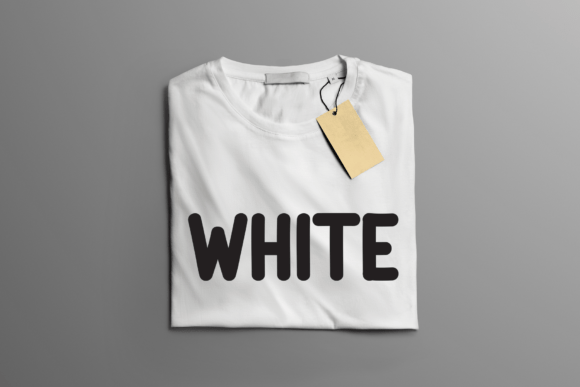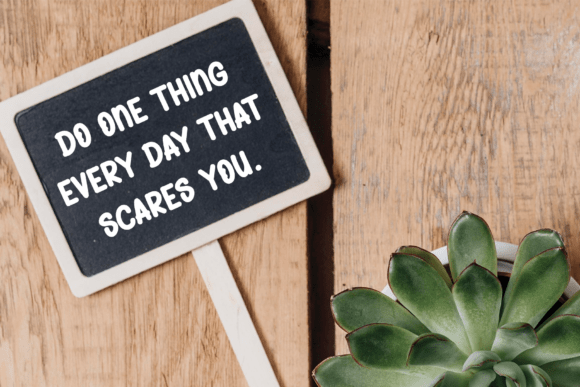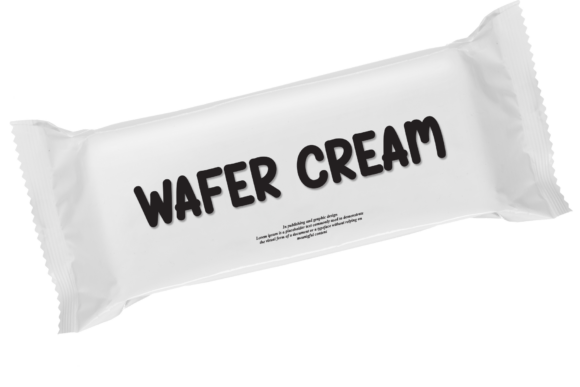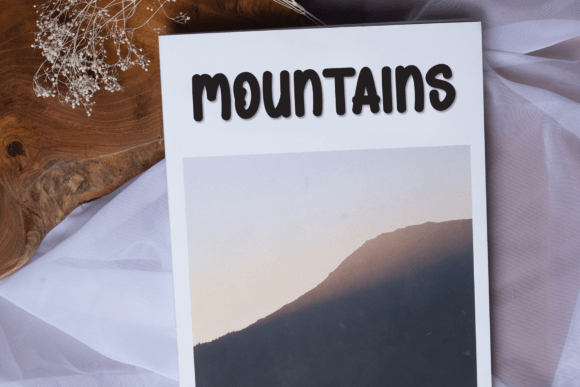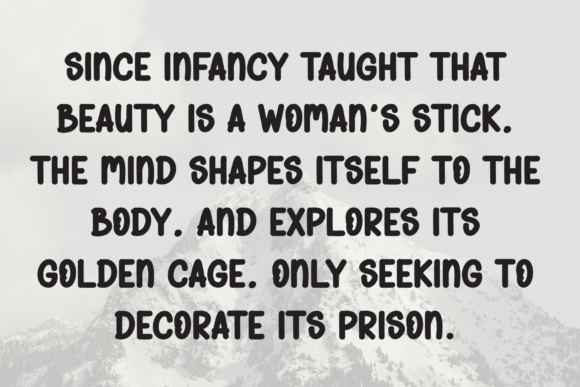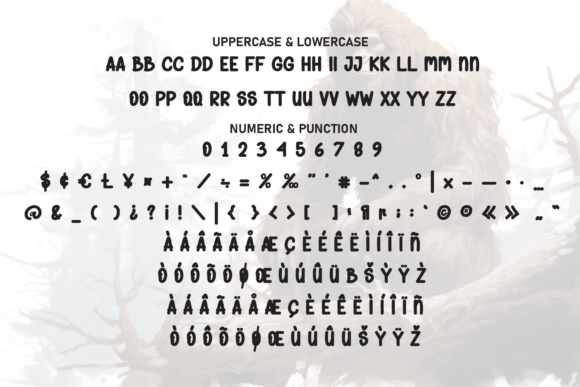
Unleashing the Charm of Bigfoot Font: A Whimsical Handwritten Display Font
Are you ready to add a touch of magic to your designs? Look no further than the captivating Bigfoot Font, a one-of-a-kind handwritten display font that exudes sweet camaraderie and mirth. This charming font is perfect for designers and crafters seeking to infuse their projects with a sense of jubilance and playfulness.
The Allure of Bigfoot Font
Bigfoot Font is more than just a font – it’s an experience. Its endearing and whimsical nature has the power to transport us back to a time when handwritten notes were a cherished form of communication. The font’s unique character is reminiscent of warm, comforting letters from loved ones, evoking feelings of nostalgia and warmth.
Perfect for Whimsical Designs
Bigfoot Font is incredibly versatile and can be used in a variety of design projects. Whether you’re creating wedding invitations, heartfelt cards, or social media graphics, this font is sure to add a refreshing touch of whimsy. Its imaginative twist makes it perfect for designers seeking to create unique and eye-catching designs that stand out from the crowd.
Effortlessly Infuse Jubilance into Your Designs
Bigfoot Font has a way of effortlessly infusing jubilance into any design. Its playful and carefree nature makes it perfect for projects that require a lighthearted touch. Imagine creating wedding invitations that set the tone for a joyful celebration or crafting cards that bring a smile to the recipient’s face. With Bigfoot Font, you can achieve this and more.
Nostalgic Memories and Handwritten Notes
Bigfoot Font stirs nostalgic memories of warm, comforting handwritten notes. Its unique character is reminiscent of a bygone era when handwritten letters were a cherished form of communication. By incorporating this font into your designs, you can evoke feelings of nostalgia and warmth, making your projects even more special and meaningful.
Design Possibilities are Endless
The design possibilities with Bigfoot Font are endless. You can use it to create:
- Wedding invitations that set the tone for a joyful celebration
- Heartfelt cards that bring a smile to the recipient’s face
- Social media graphics that stand out from the crowd
- Signs and posters that add a touch of whimsy to any event
- Packaging designs that make your products stand out
Why Choose Bigfoot Font?
So, why choose Bigfoot Font? Here are just a few reasons:
- Unique and one-of-a-kind design
- Effortlessly infuses jubilance into any design
- Perfect for whimsical and imaginative designs
- Stirs nostalgic memories of warm, comforting handwritten notes
- Versatile and can be used in a variety of design projects
Get Ready to Fall in Love with Bigfoot Font
If you’re ready to add a touch of magic to your designs, then Bigfoot Font is the perfect choice. Its captivating allure and whimsical nature make it a must-have for designers and crafters seeking to create unique and eye-catching designs. So, dive into the enchanting world of Bigfoot Font and discover the endless design possibilities that await you.
In conclusion, Bigfoot Font is a one-of-a-kind handwritten display font that is sure to captivate designers and crafters alike. Its unique character, whimsical nature, and nostalgic charm make it perfect for a variety of design projects. Whether you’re seeking to infuse your designs with jubilance, whimsy, or nostalgia, Bigfoot Font is the perfect choice. So, get ready to fall in love with this charming font and unlock a world of creative possibilities.